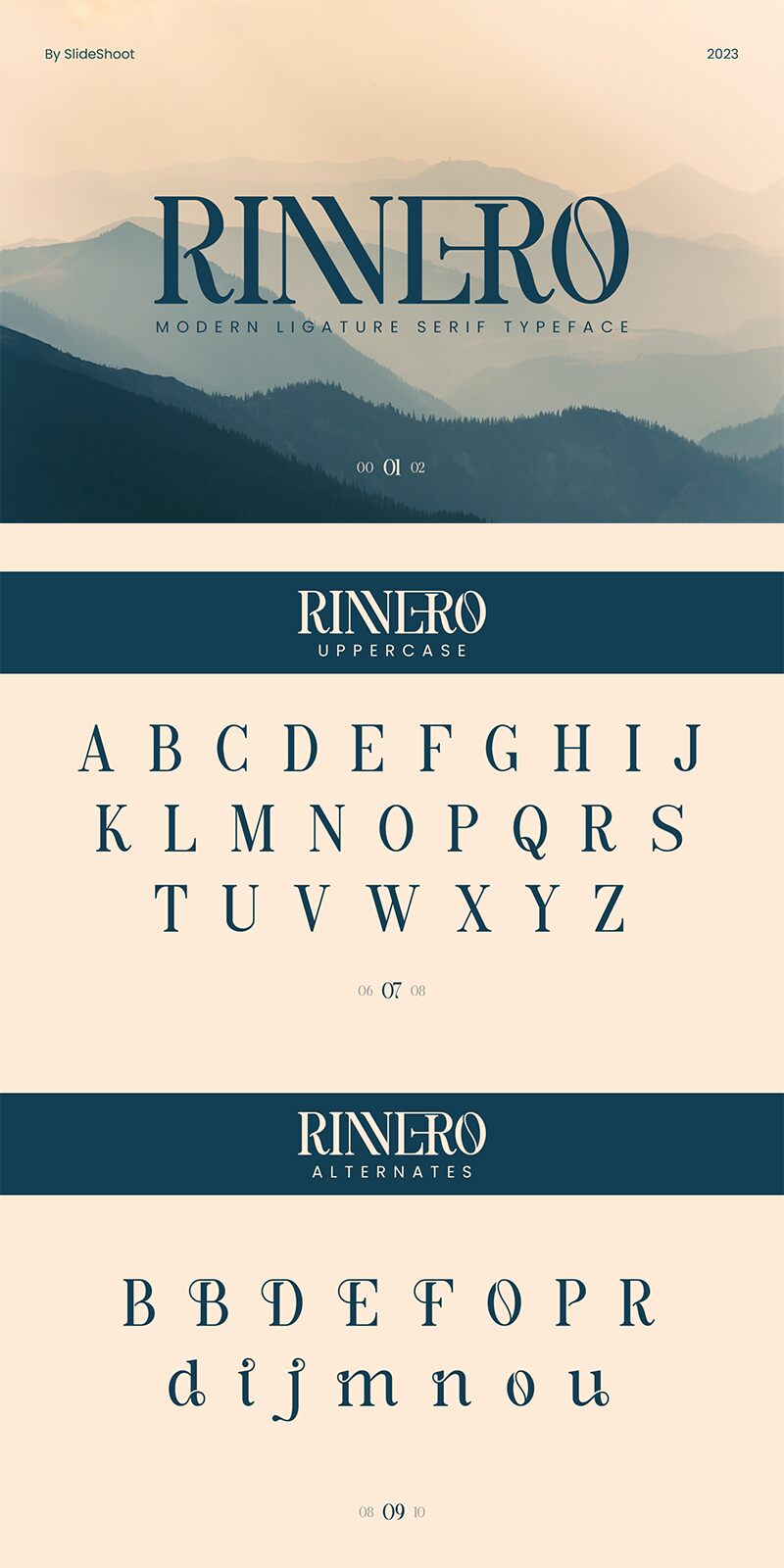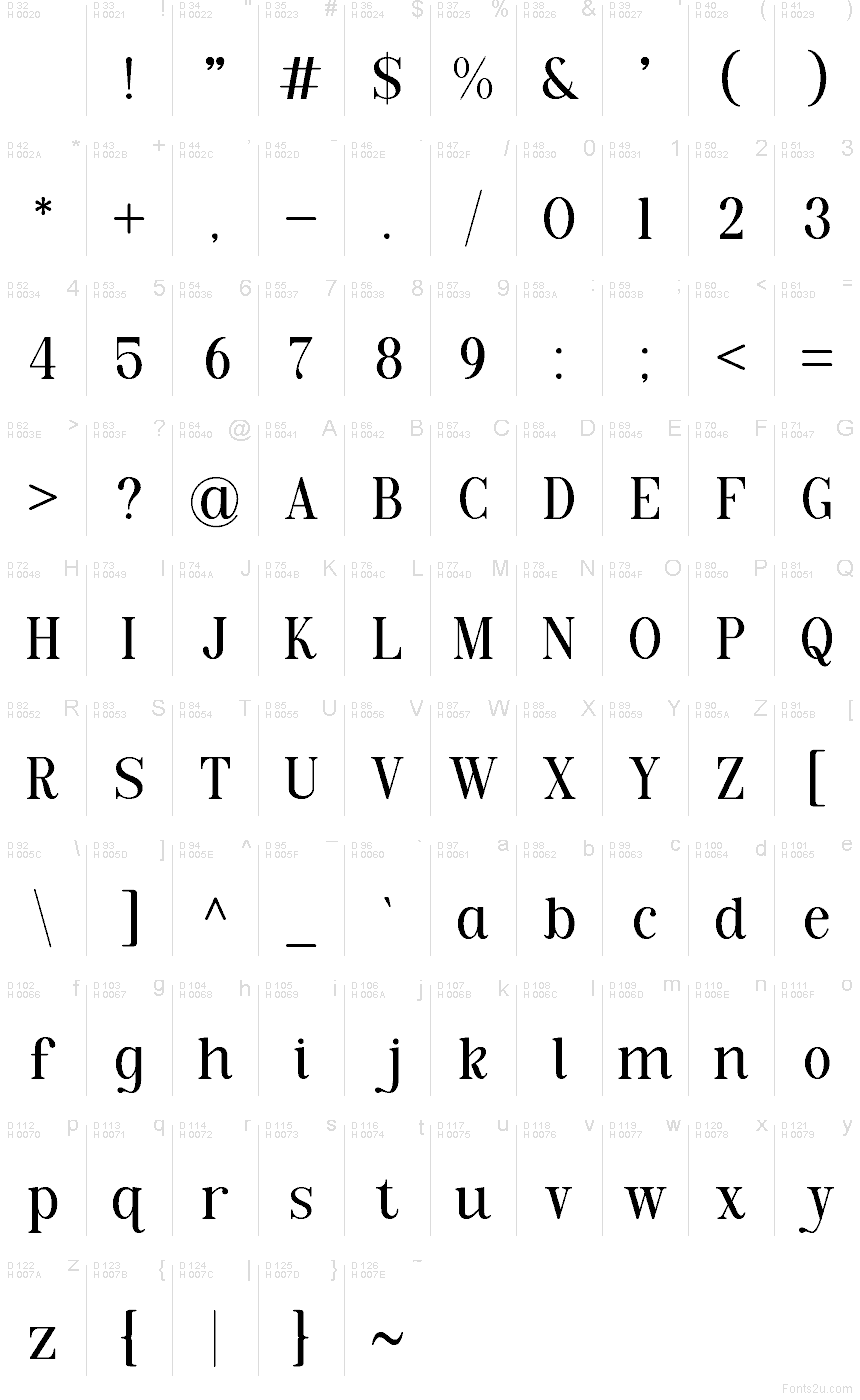
Rinnero
Rinnero, a free modern serif by SlideShoot, carries a fashion-editorial mood with tall contrast, fine hairlines, and rounded lowercase forms that keep it from feeling severe. The letters mix crisp vertical stress with soft, almost calligraphic curves, so the font feels refined but still a little warm.
It suits branding, magazine covers, beauty packaging, boutique signage, and social media title cards where a few words need poise rather than noise. As a free font, Rinnero also works well for pull quotes, short headlines, and monogram-style initials because those sweeping serifs and narrow joins give even brief settings a dressed-up look.